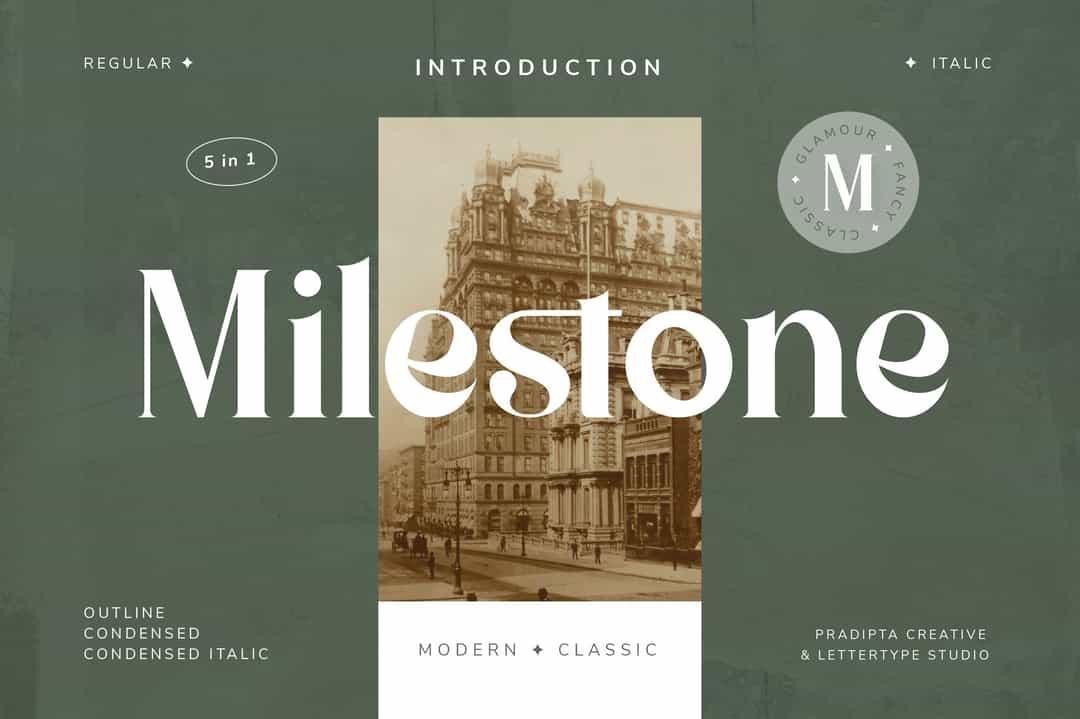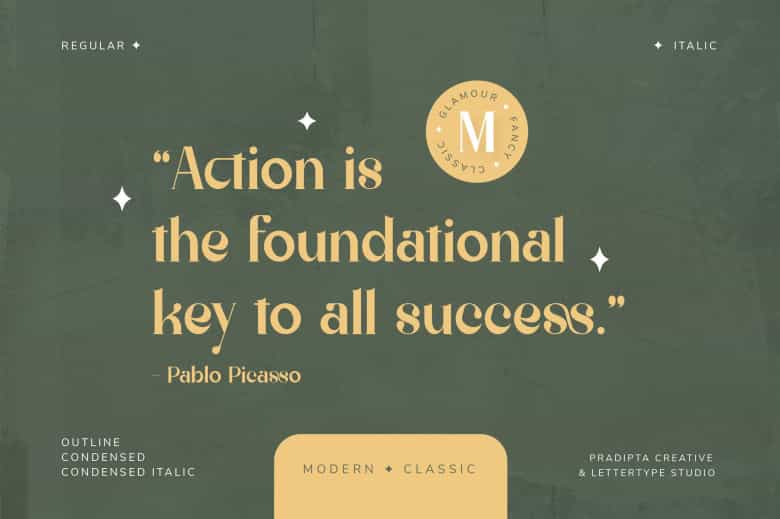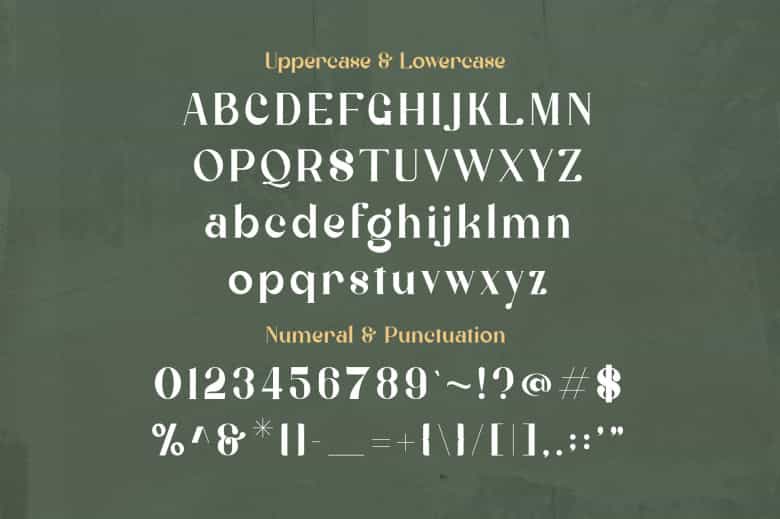
Milestone is an elegant, glamorous, and sophisticated font which makes an excellent choice for logo designs, clothing branding signs, headers wedding invitations posters or anything else! This font can also be found in its free trial version here!